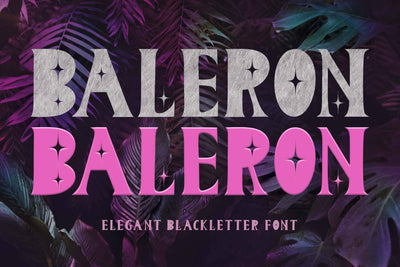
Baleron
"Baleron" is an elegant blackletter font. This font is equipped with uppercase, lowercase, numerals, ligatures, punctuations and multilingual support. Very suitable for use for certificates, banners, posters, logos, business branding, stickers, photography, weddings, invitations and others.